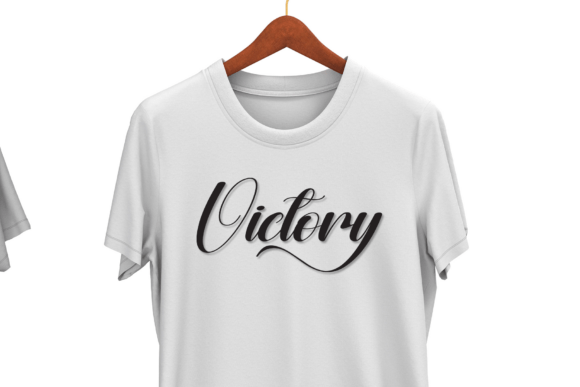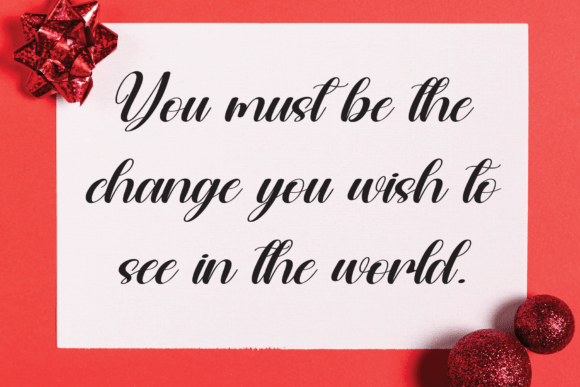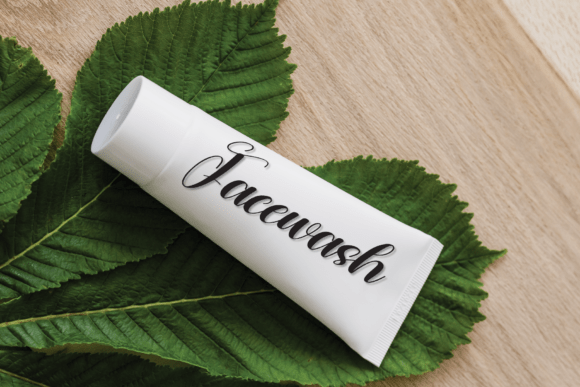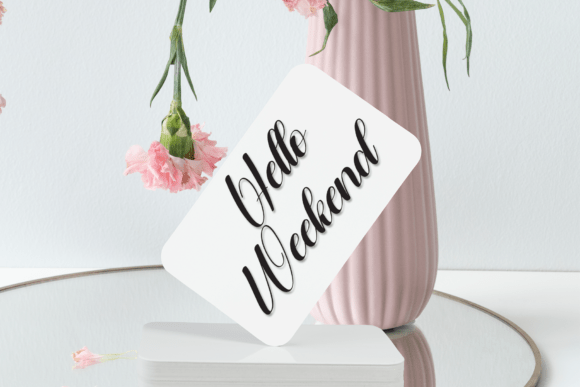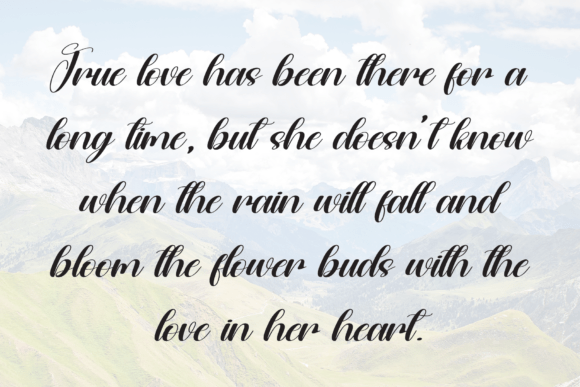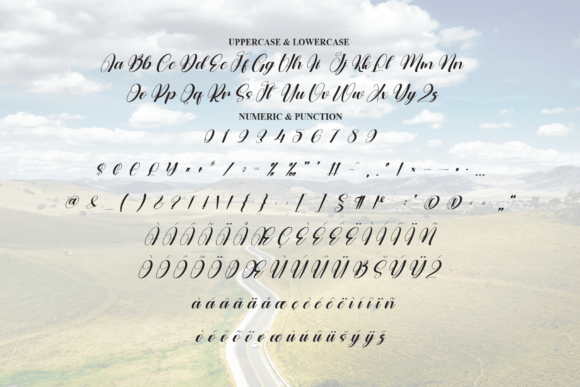
Discover the Charm of Country Font: A Sweet Addition to Your Design Toolkit
I’ll never forget the moment I stumbled upon the perfect font for a wedding invitation project. I was on a tight deadline, and my client was particular about the style – something sweet, charming, and utterly personal. As I scrolled through my font library, one delightful font caught my eye: Country Font. Its handwritten display goodness immediately won me over, and I knew I had found the perfect match. In this article, I’ll share my experience with Country Font, its features, and how to make the most of it in your designs.
A Personal Review: What I Love and What to Watch Out For
- ✅ Country Font exudes warmth and friendliness, making it perfect for projects that require a personal touch.
- ✅ Its charming and whimsical style is sure to capture the heart of your audience.
- ✅ The font is incredibly versatile, suitable for wedding invitations, personalized cards, and various designs that need a sprinkle of fun.
- ✅ The font’s OpenType features allow for a range of creative possibilities.
- ⚠️ Country Font may not be the best choice for body text or long-form content due to its highly decorative nature.
- ⚠️ Some users may find the font’s sweetness a bit overpowering for certain design projects.
The Story Behind Country Font: Designer Inspiration
Country Font was designed with the intention of creating a warm and inviting typeface that captures the essence of handmade crafts. The designer aimed to create a font that would evoke feelings of nostalgia and friendliness, perfect for designs that require a personal touch. With its charming and whimsical style, Country Font is sure to become a staple in your design toolkit.
Q: What type of designs is Country Font best suited for?
A: Country Font is perfect for designs that require a personal touch, such as wedding invitations, personalized cards, and various designs that need a sprinkle of fun.
Q: Is Country Font suitable for body text or long-form content?
A: No, Country Font is not recommended for body text or long-form content due to its highly decorative nature.